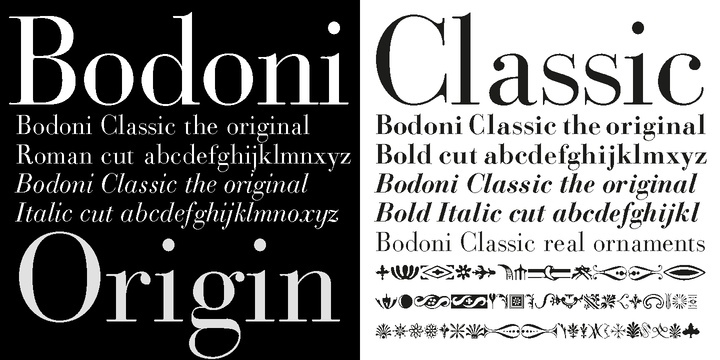
Bodoni Classic Font
Bodoni Classic Font is perfect for luxury fashion magazines, high-end editorial layouts, prestigious book publishing, elegant branding projects, sophisticated advertising campaigns, classical music promotions, fine art exhibitions, luxury product packaging, refined corporate communications, and timeless cultural publications.
What makes Bodoni Classic Font exciting is its timeless elegance that embodies the pinnacle of typographic refinement and neoclassical sophistication through masterfully crafted letterforms. This distinguished typeface combines 18th-century Italian craftsmanship with contemporary functionality, creating a personality that communicates prestige, cultural heritage, and genuine artistic excellence. The font's classical character and sophisticated appeal make it perfect for luxury brands, cultural institutions, and prestigious organizations seeking to convey the highest standards of typographic beauty and editorial excellence.
The Bodoni Classic Font family includes Regular, Bold, Light, Medium, Italic, Classic, Condensed, and Display variants. Each weight maintains the font's neoclassical character while providing comprehensive typographic flexibility for luxury brand identity systems and editorial design applications across diverse cultural platforms.
Whether you're developing luxury brand identities, creating editorial publications, designing cultural marketing materials, or building sophisticated advertising campaigns, Bodoni Classic Font delivers unmatched classical appeal and typographic sophistication. Its prestigious presence makes it perfect for fashion houses, publishing companies, cultural institutions, and luxury brands seeking authentic neoclassical representation.
The font's precise proportions and classical details create an elegant reading experience that honors the great tradition of Italian typography and neoclassical design principles. Each letterform has been carefully crafted to preserve Bodoni's original vision while maintaining excellent readability across modern luxury applications.
This versatile typeface excels in cultural environments, offering designers the sophistication needed for comprehensive luxury brand communication strategies. The extensive character set includes classical alternates, elegant ligatures, and sophisticated symbols for luxury market positioning and cultural brand storytelling.
Embrace the power of classical design that celebrates typographic heritage and authentic Italian craftsmanship excellence.